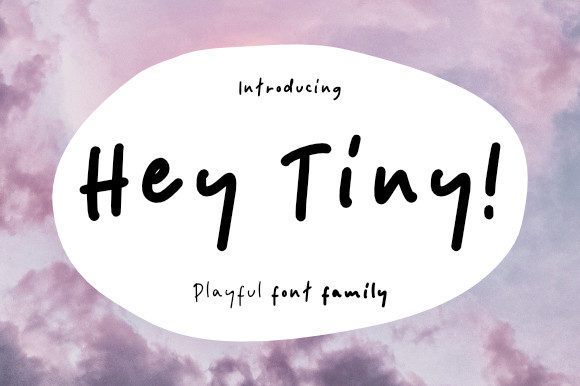
Introduce your brand with the irresistible charm of Hey Tiny Font, a meticulously crafted script masterpiece. Inspired by the art of hand-lettering, this font exudes a natural authenticity that will breathe life into your creative endeavors.
Immerse yourself in its whimsical curves and heartfelt strokes, evoking the warmth of handwritten notes and the nostalgia of cherished memories. Let Hey Tiny Font dance across your designs, infusing them with a touch of elegance and a captivating story.
Designed with the discerning eye of a calligrapher, Hey Tiny Font empowers you to make a bold statement. Its versatility knows no bounds, from sophisticated business cards that command attention to heartfelt invitations that tug at the heartstrings.
Whether you're a seasoned designer or just starting your creative journey, Hey Tiny Font is your trusted companion. Its user-friendly nature makes it a joy to work with, allowing your imagination to flow effortlessly.
Unlock the charm of Hey Tiny Font today and elevate your designs to new heights of brilliance. Experience the magic of handwritten artistry, where every letter tells a tale and your creations leave an unforgettable mark.